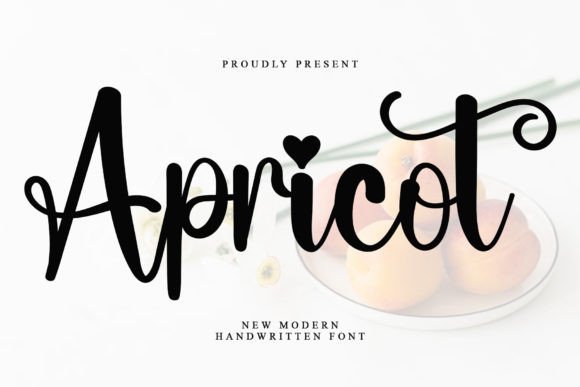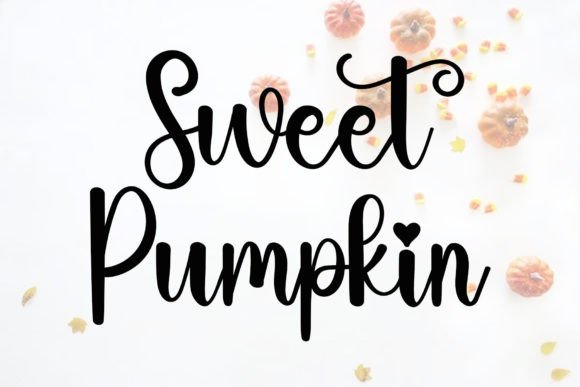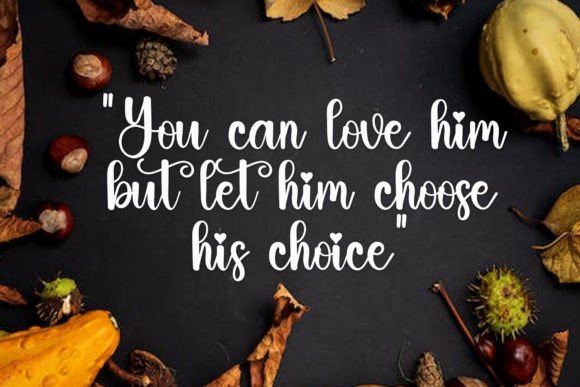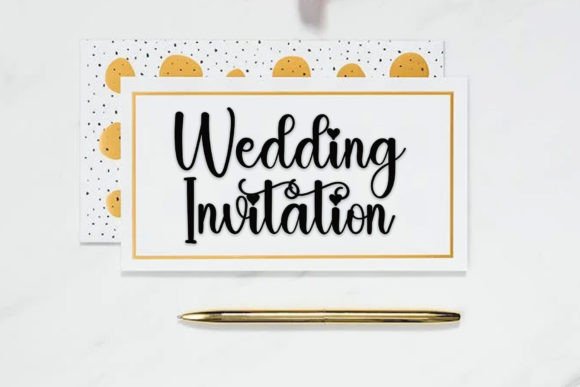
Apricot Font
About the Apricot Font
Meet Apricot Font, a stunning font that brings a touch of elegance and professionalism to any design. Apricot is a magical handwritten font carefully created with a touch of elegance. Whether you’re looking for fonts for Instagram or calligraphy scripts for DIY projects, this font will turn any creative idea into a true piece of art!
Apricot’s elegant, handwritten style works best for short headlines, invitations, or social media graphics where its delicate charm can shine. It’s ideal for branding projects emphasizing a handcrafted, personal touch, or for packaging that conveys a premium, boutique feel. However, its low x-height and varying stroke weights make it unsuitable for body text or UI elements requiring high readability.
For optimal visual harmony, pair Apricot with a clean sans-serif like Montserrat for a contemporary contrast, or a classic serif like Garamond for a more traditional feel. A simple geometric sans-serif could also provide a strong counterpoint to Apricot’s flowing script.
Apricot projects a personality that is both sophisticated and approachable, conveying a sense of refined casualness. Its slightly irregular strokes prevent it from feeling overly formal, making it perfect for brands aiming for a balance between elegance and approachability.